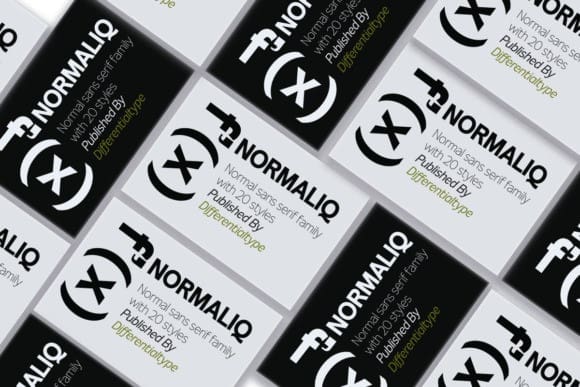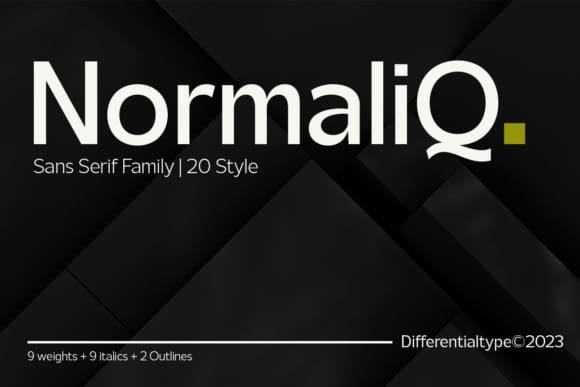
Normaliq Font Family
Normaliq Font Family, is a geometric and modern sans serif family that exudes a unique and minimalist charm. comes in nine weights, ranging from Thin to Black, combined with an Italic style, as well as the addition of Black Outline and Black Italic Outline.
The balance of hard lines and subtle curves provides strength and eye-catching for every weight of the family. Each font in the family can stand alone, dynamic and authoritative.
This font family offers versatility for a variety of design needs, designed specifically for looks such as titles, branding, logos, books, branding and other impactful editorial work.